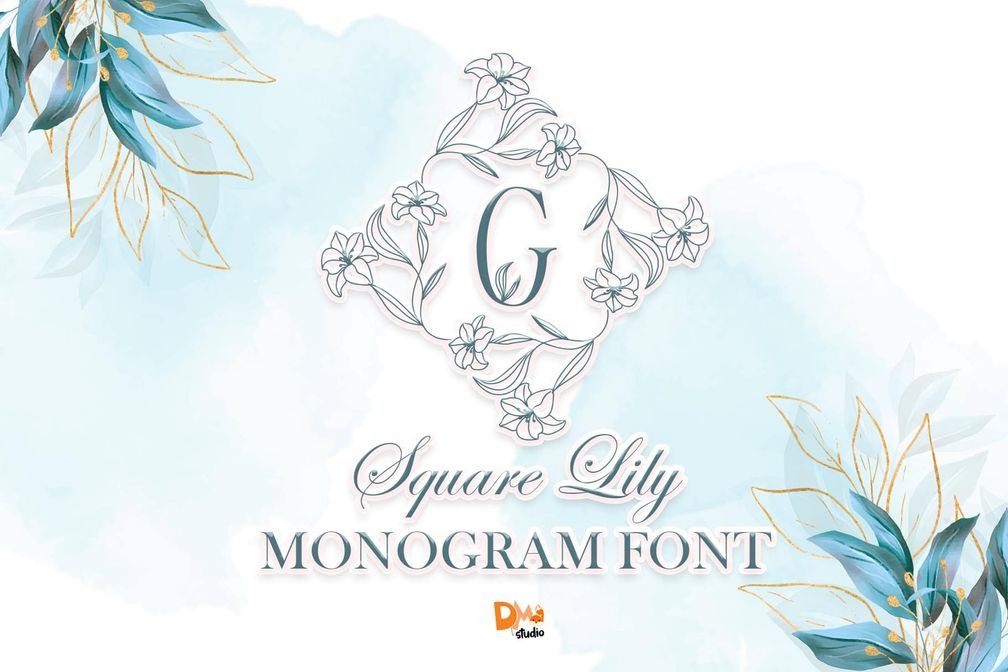
Square Lily Monogram
Square Lily Monogram – Elegant & Ornamental Monogram Font
Square Lily Monogram is a refined and sophisticated monogram font featuring structured letterforms adorned with delicate lily-inspired floral details. This decorative typeface is perfect for wedding invitations, luxury branding, personalized stationery, boutique packaging, and artistic designs. Its balance of geometric precision and floral elegance makes it a timeless choice for upscale projects.
• Structured Floral Monogram Design: A perfect blend of square-shaped letterforms with delicate lily-inspired embellishments.
• Ideal for Elegant & Luxury Projects: Perfect for wedding stationery, branding, personalized gifts, and upscale packaging.
• Timeless & Ornamental Aesthetic: A fusion of classic monogram style with modern sophistication.
• Multilingual Support: Includes extended Latin characters for multiple languages.
• Complete Character Set: Includes uppercase, lowercase, numbers, punctuation, and symbols.